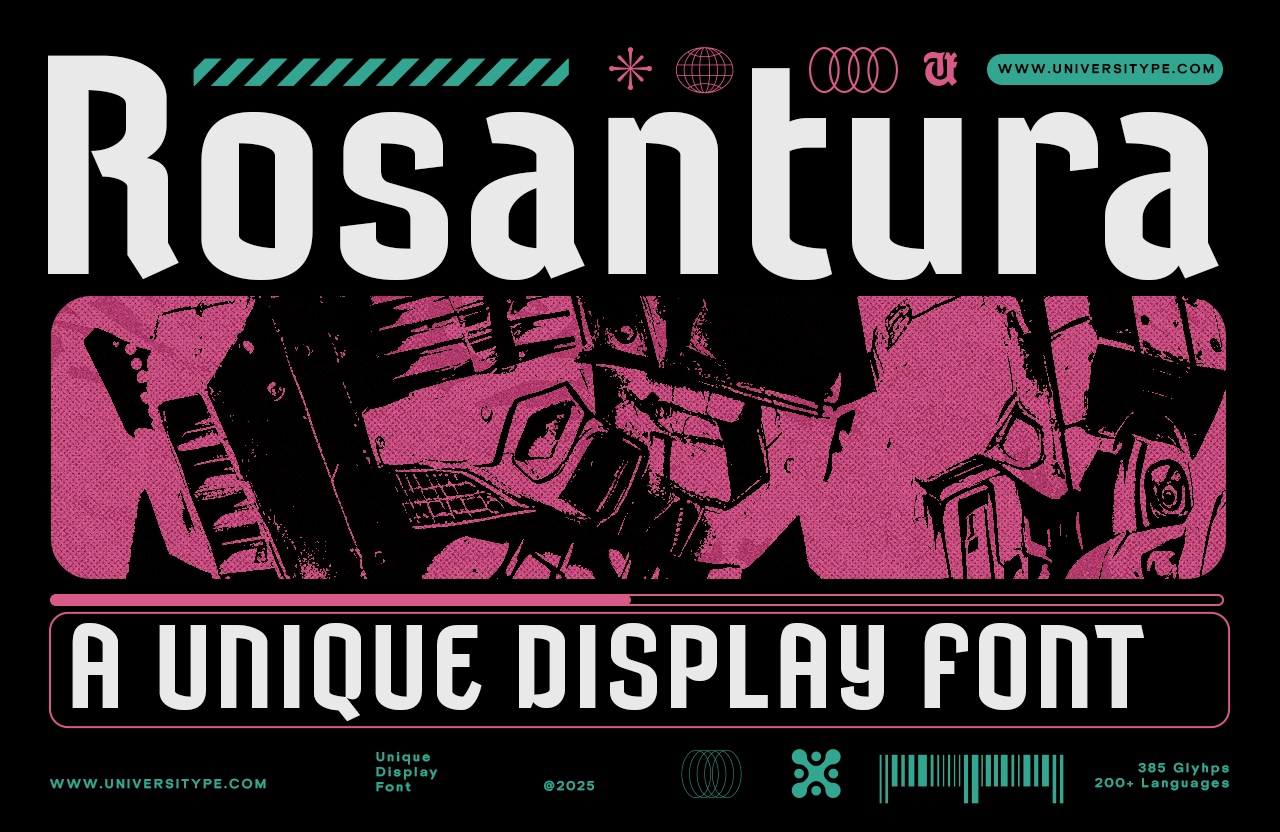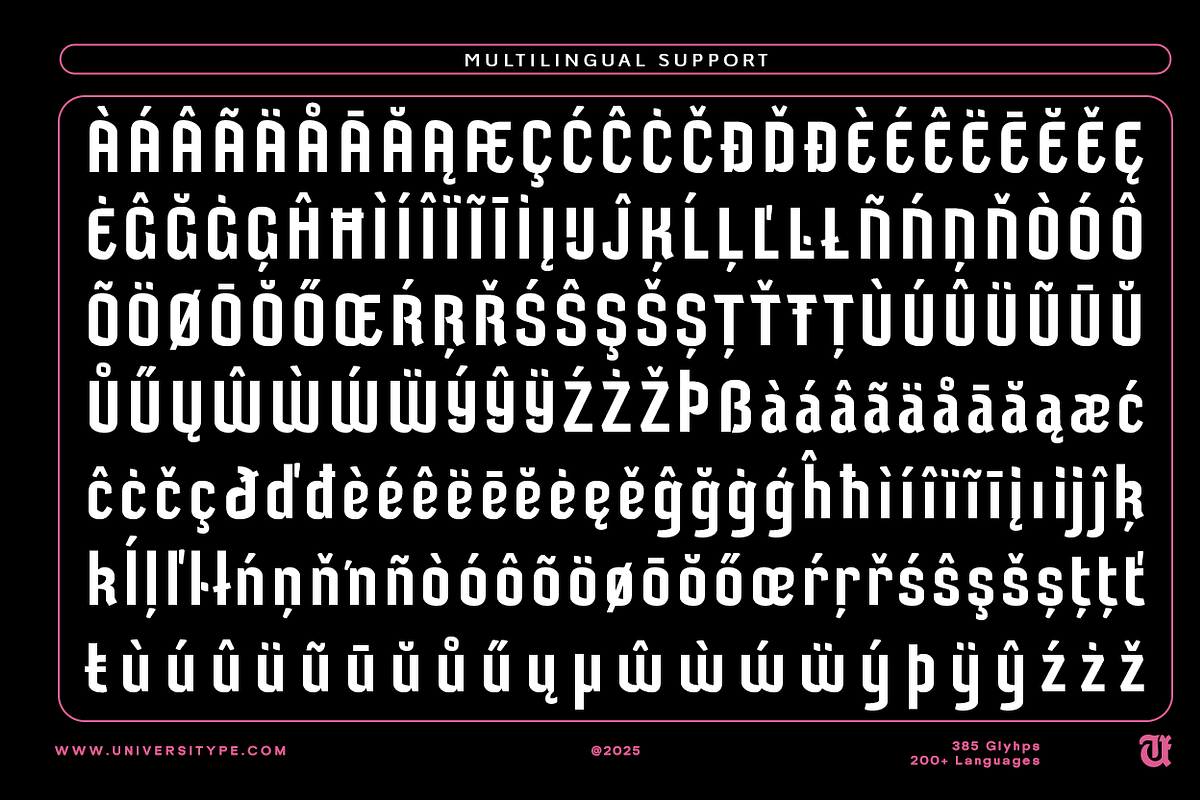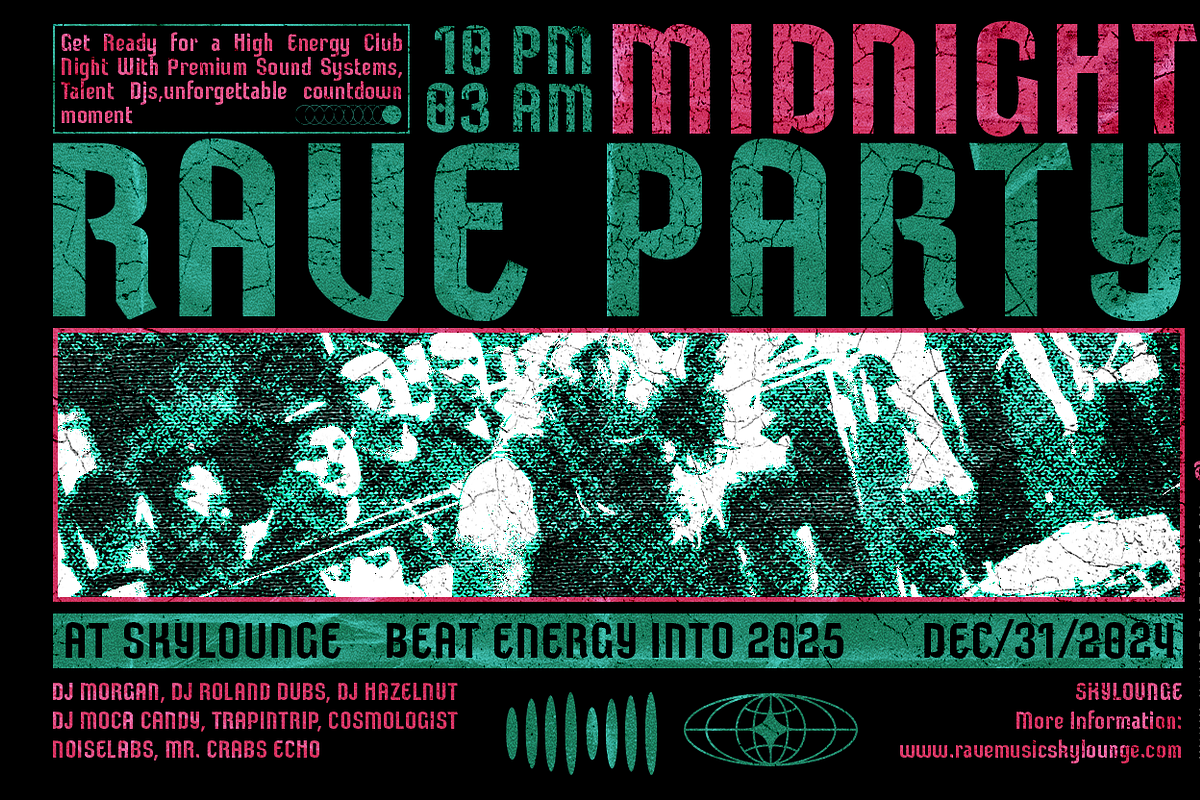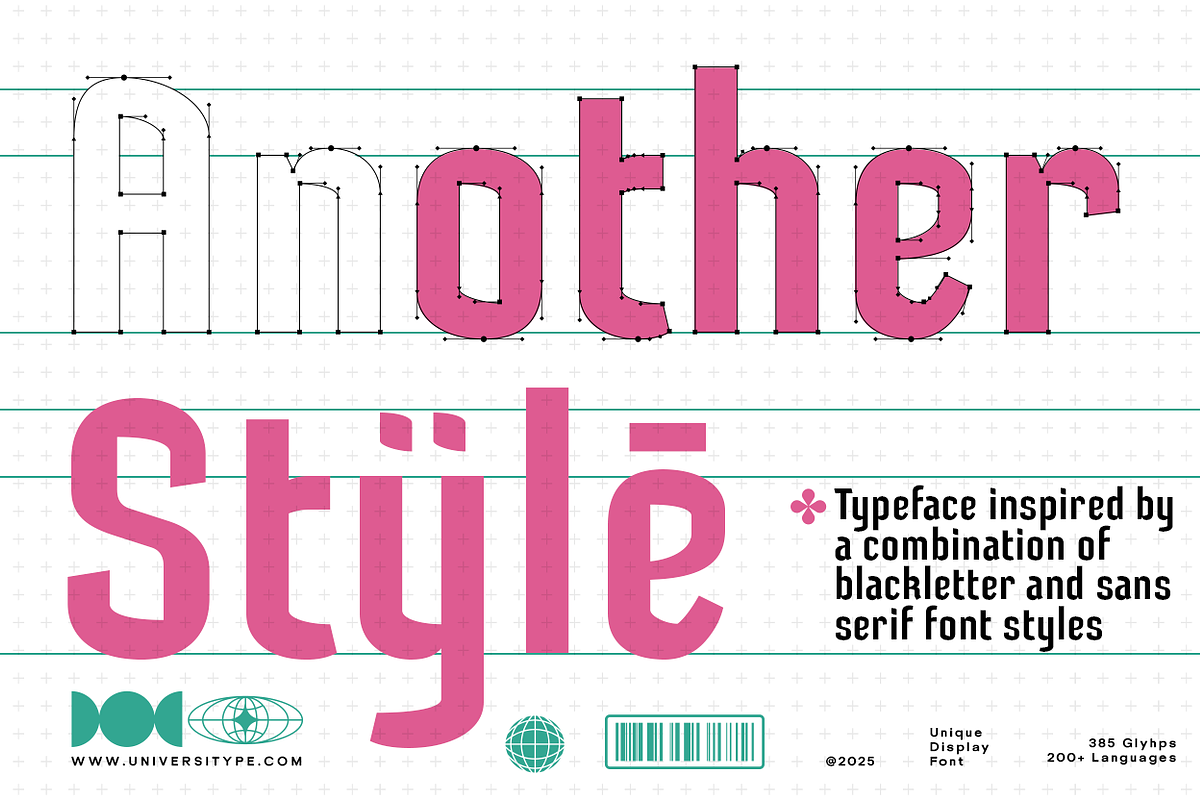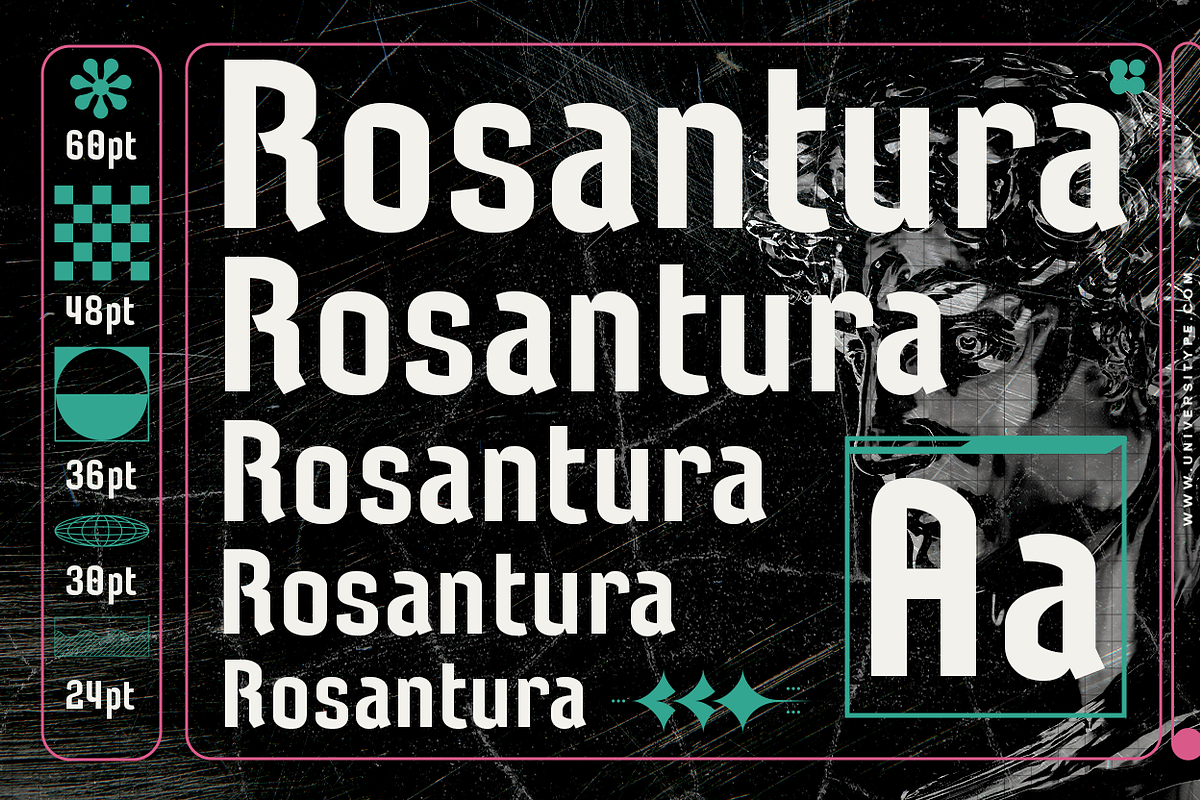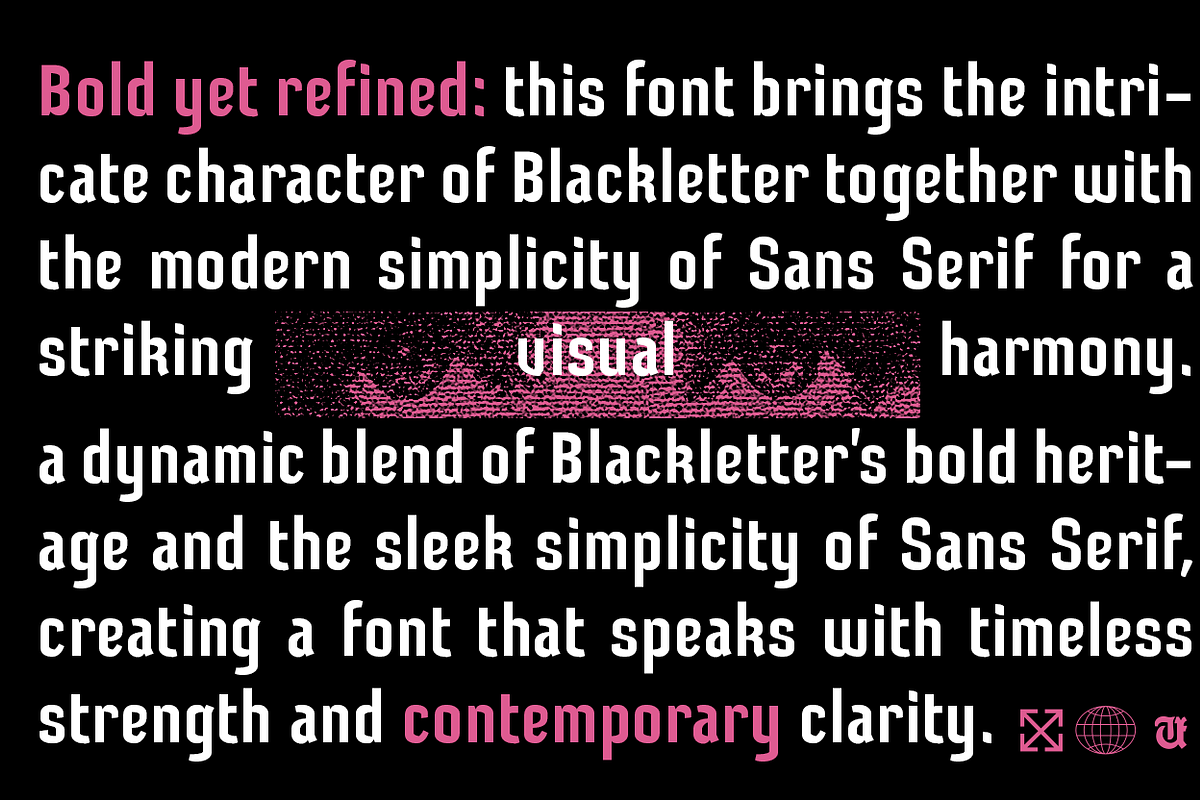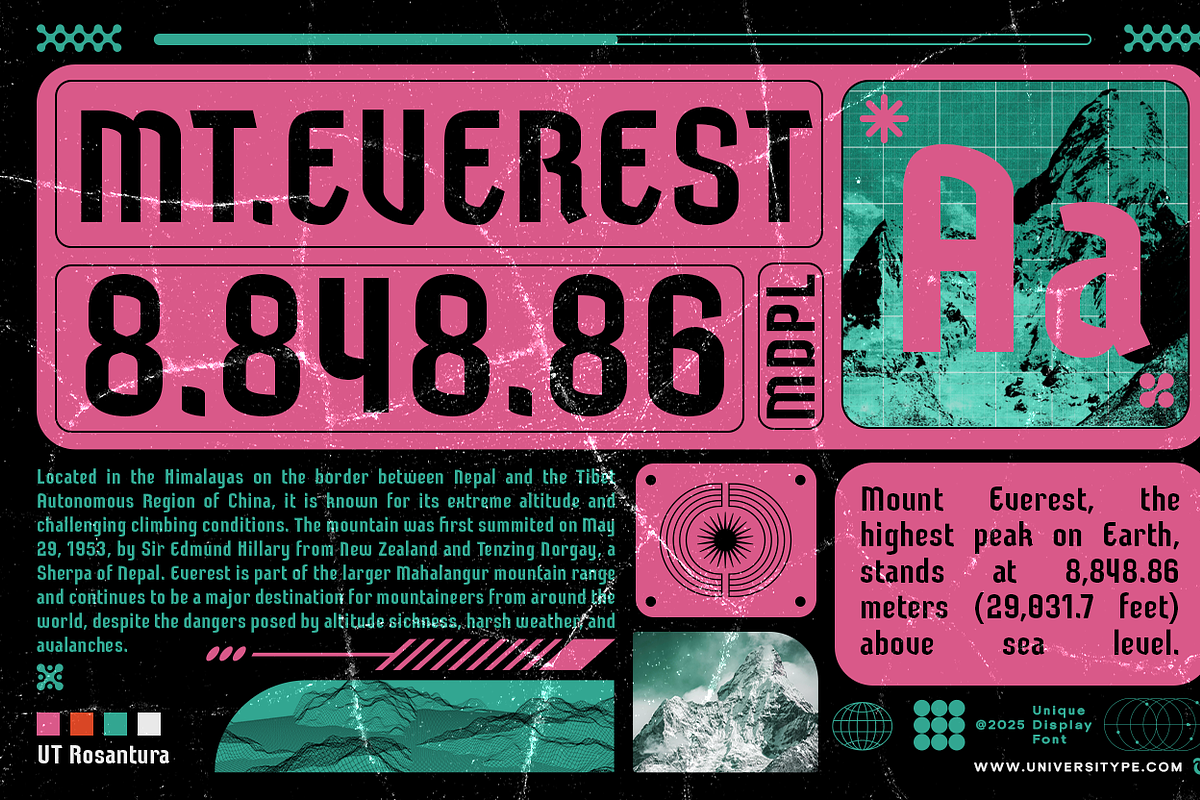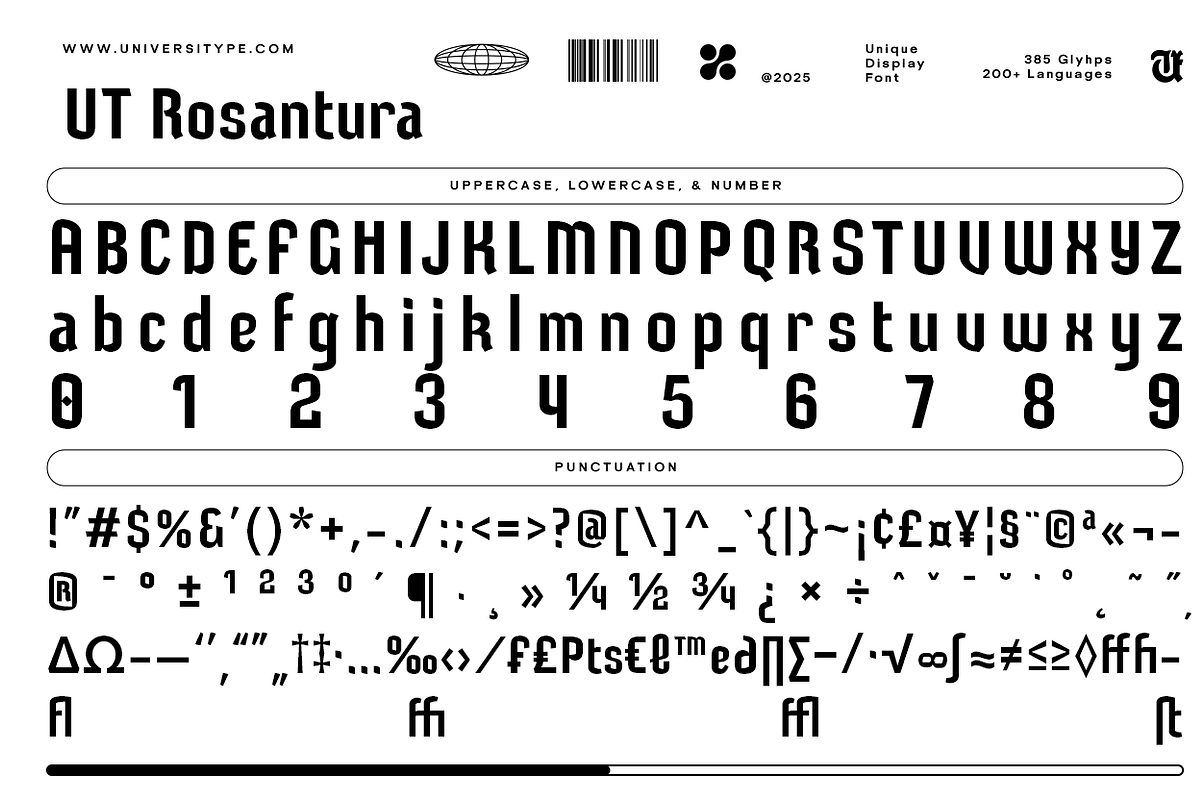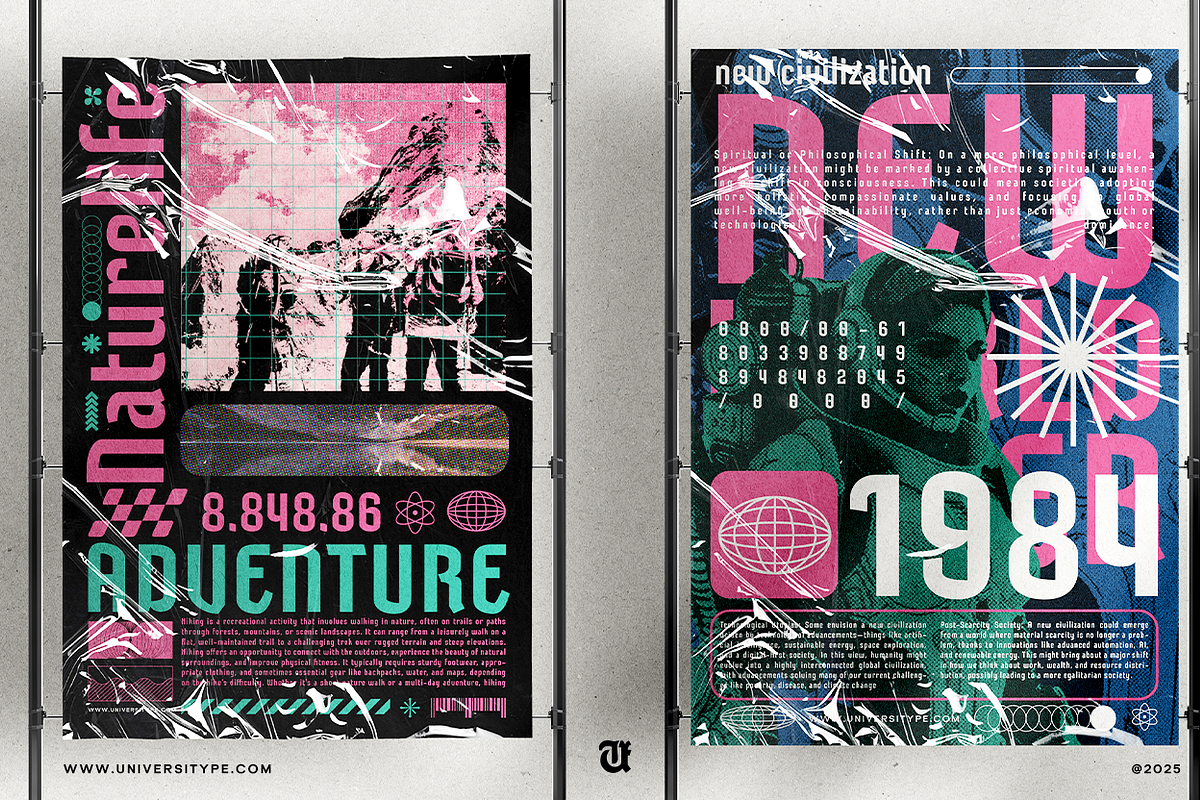
UT Rosantura : A Unique Display Font
Discover UT Rosantura, a unique display font that seamlessly blends the intricate elegance of Blackletter with the modern simplicity of Sans Serif. Perfect for graphic designers, typographers, and creative professionals, this versatile typeface is ideal for branding, event promotion, digital media, and print media. With over 200 languages supported and 385 glyphs, UT Rosantura ensures your designs are both impactful and globally accessible. Available in OTF, TTF, and WOFF formats, it offers customization options to suit any project. Elevate your design projects with this timeless yet contemporary font.